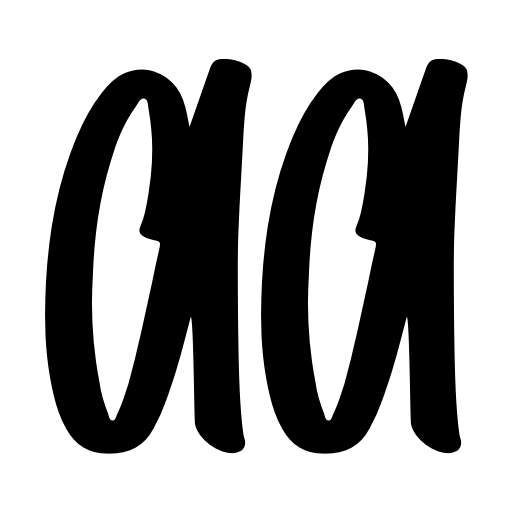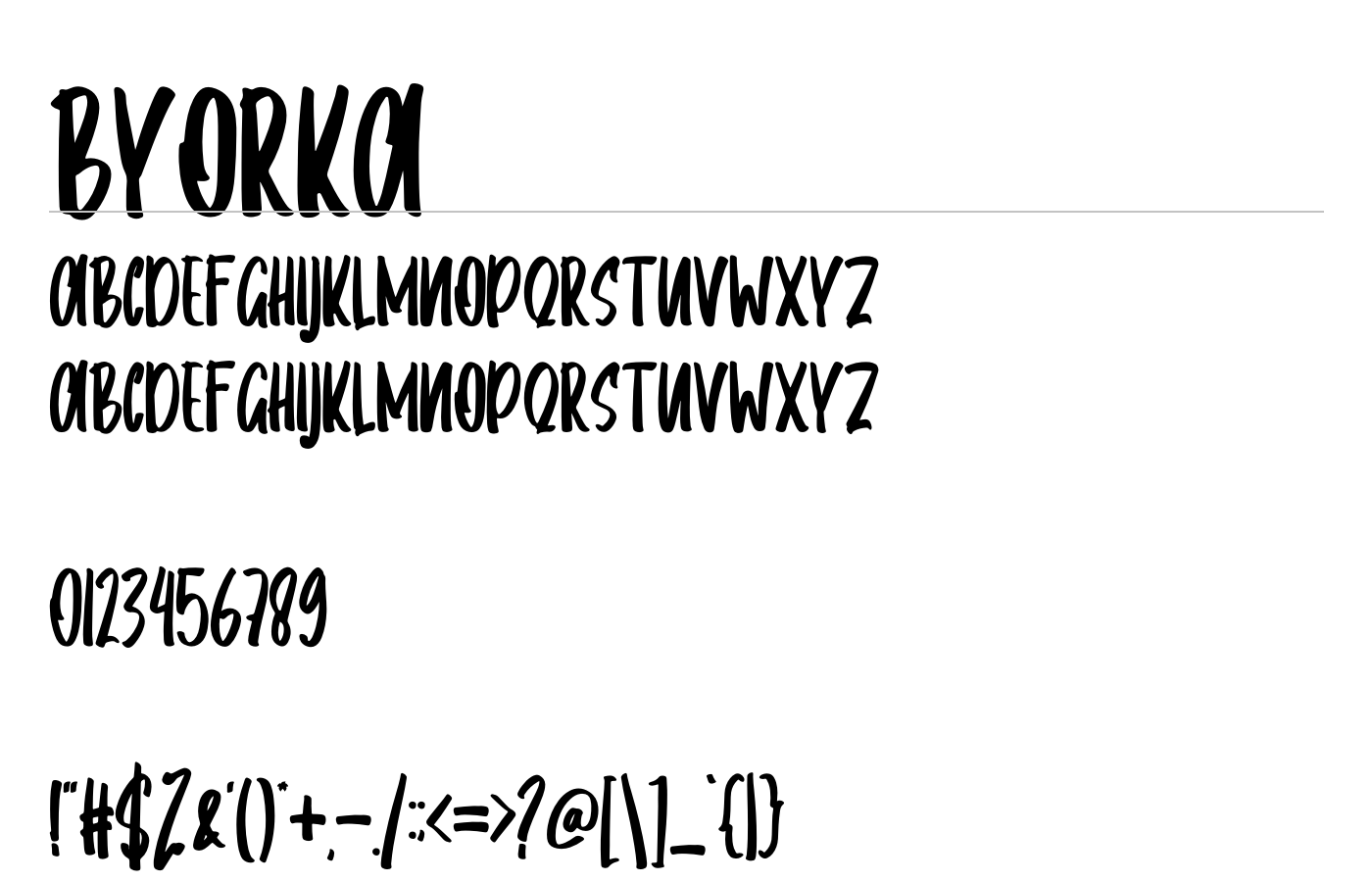
Byorka is a playful, hand-drawn script font with a bold, organic feel and tall, narrow letterforms that give it a lively and casual personality. Its irregular strokes and informal style make it ideal for creative, fun branding, posters, and headlines where a friendly, approachable vibe is desired. This font works especially well for projects targeting a youthful audience or emphasizing a personal, handmade touch.
Byorka Font
About Byorka Font